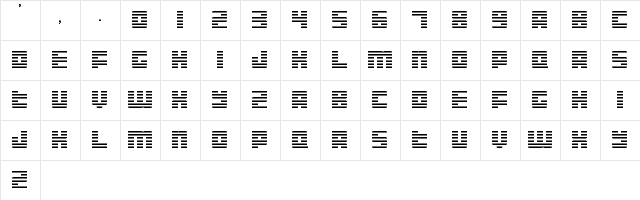
Display Gothic B Regular
| Designer | Wolf Lambert |
Design Context for Display Gothic B Typeface
Display Gothic B is built around its visual character rather than neutral utility — its distinctive forms are designed to make an impression at display sizes.
Font Pairing: Pair with a clean neutral sans-serif for body copy to let Display Gothic B's character lead without overwhelming the composition.
Pro Tip: Use Display Gothic B exclusively at display sizes — it was designed to be seen, not read at length. Let a neutral companion handle body copy.